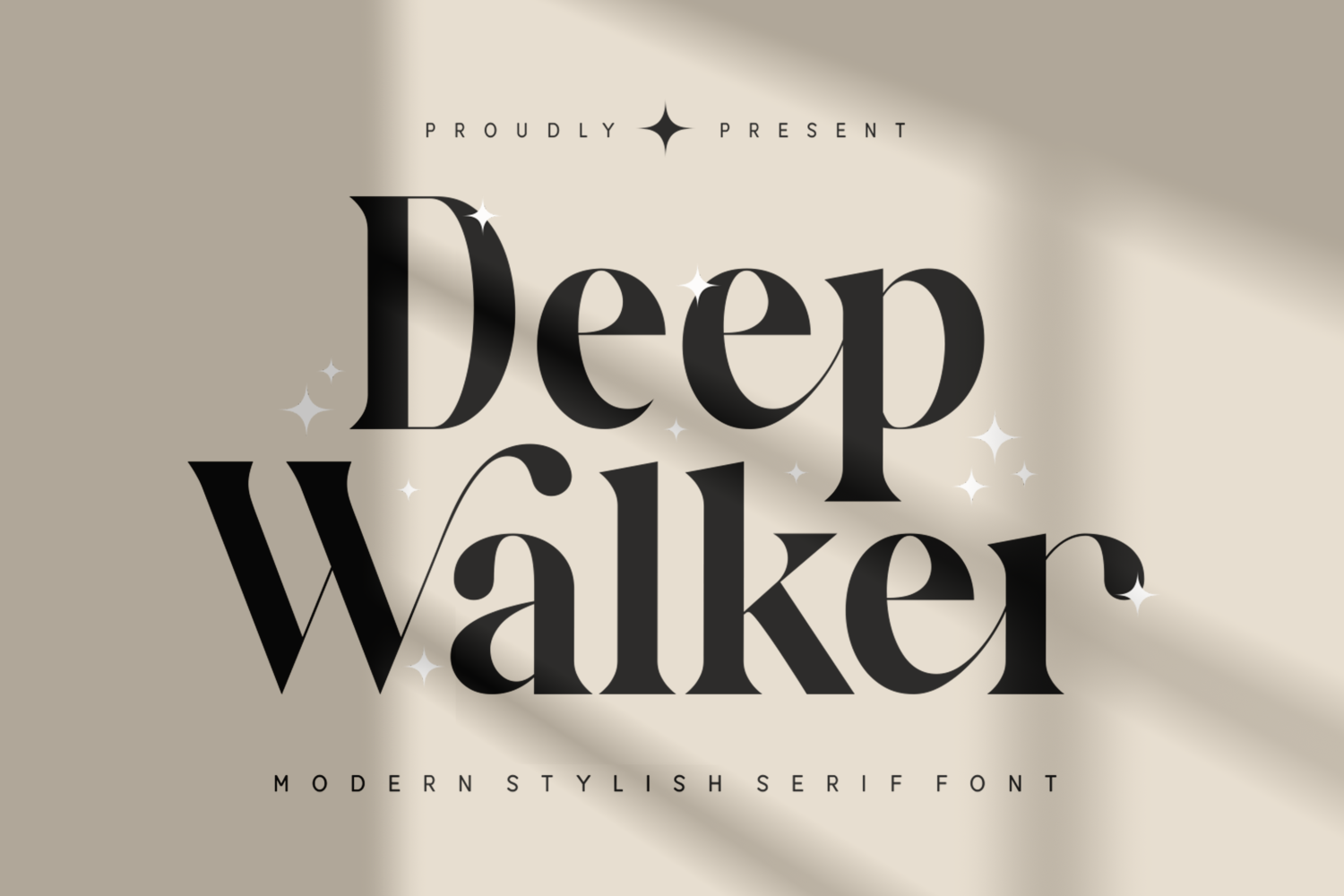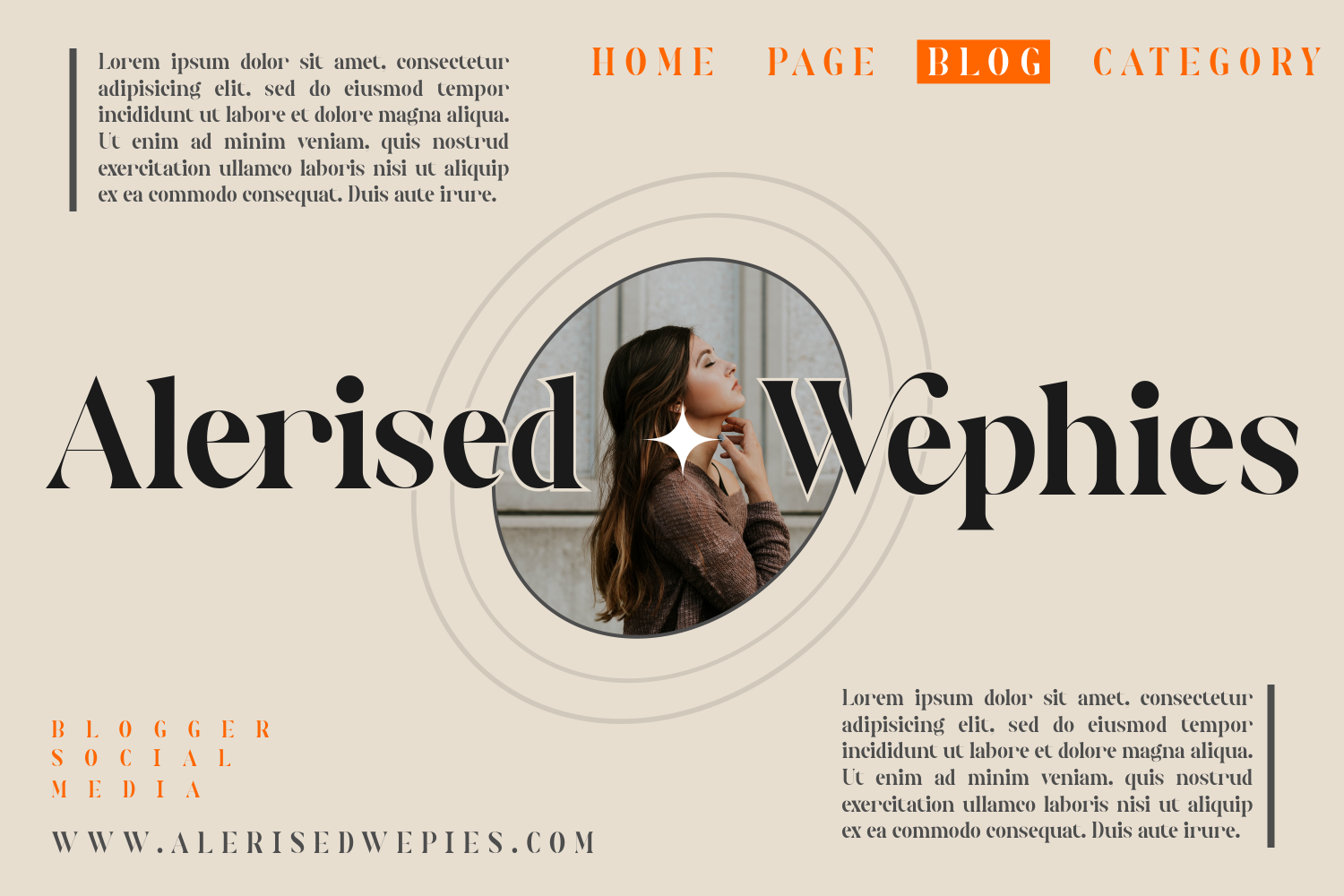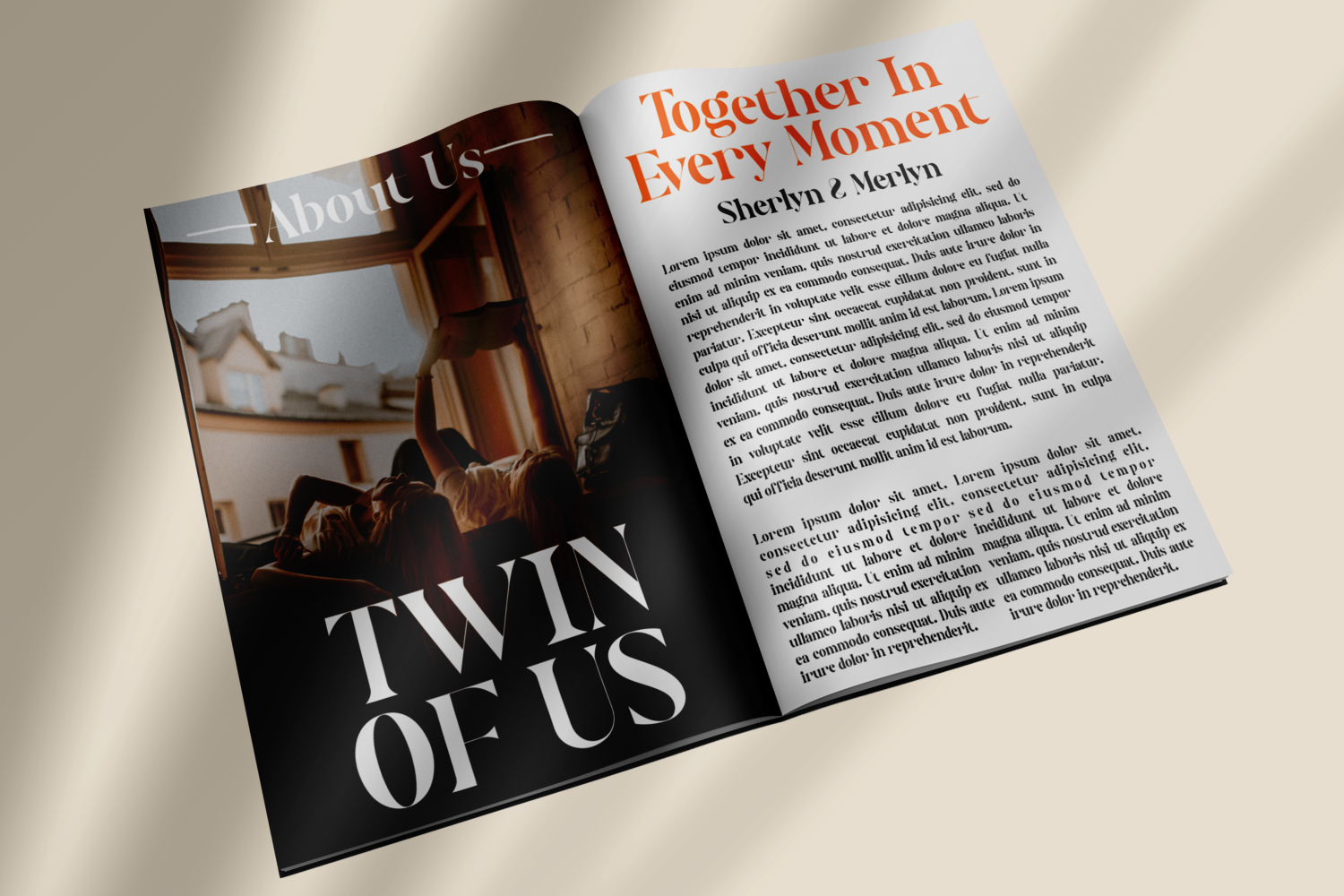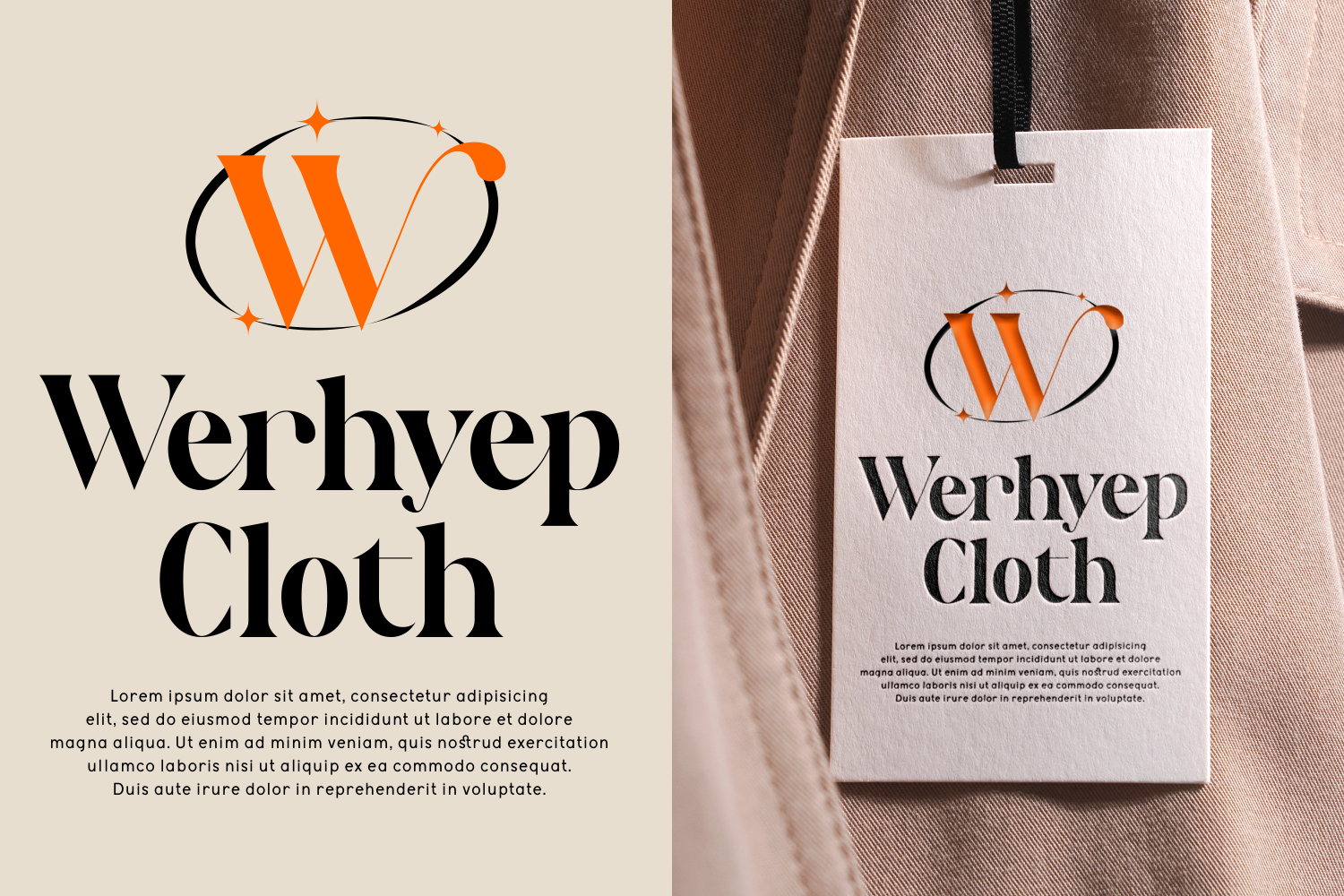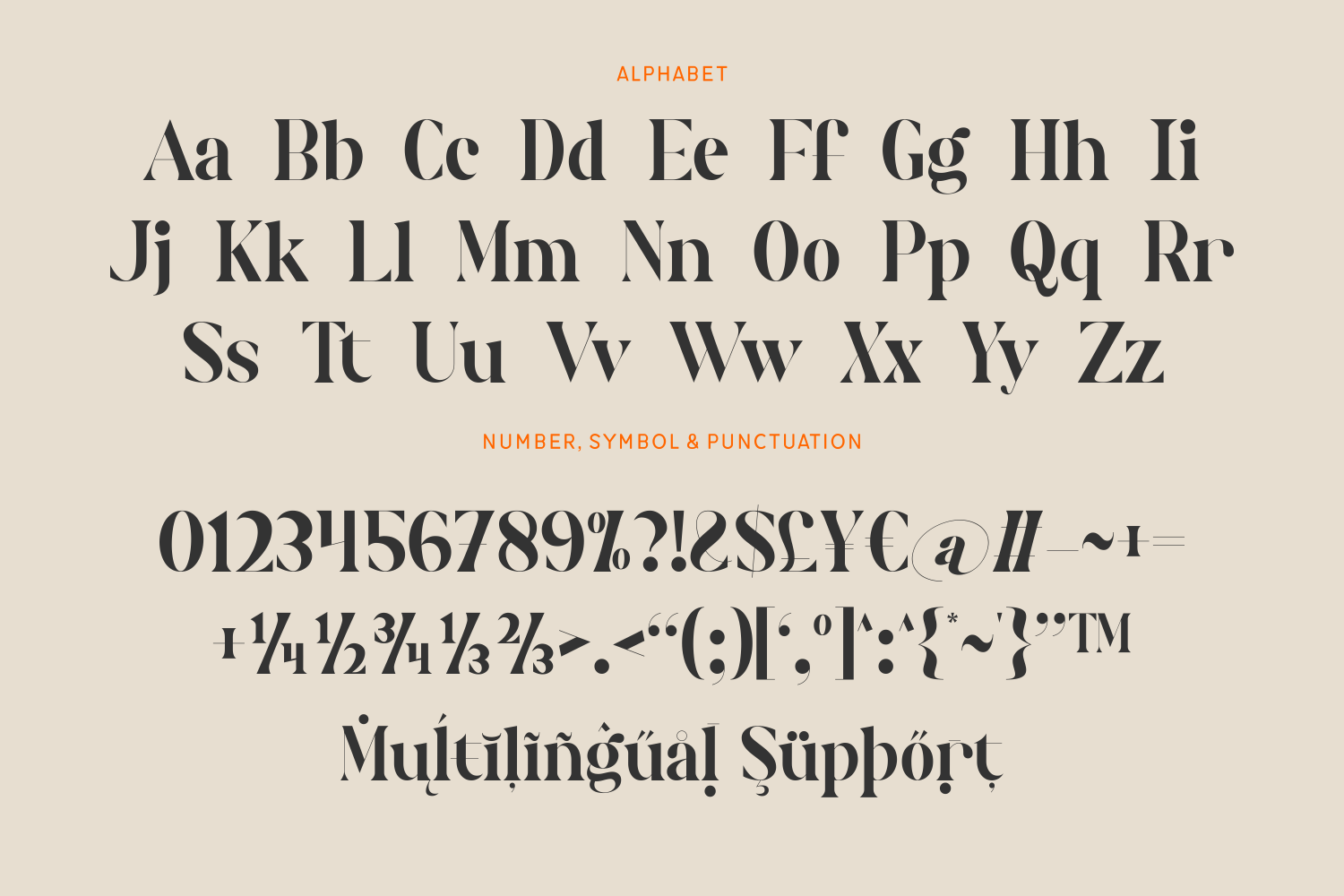
Deep Walker is a bold and stylish modern serif font with a high-contrast design and artistic flair. Featuring sharp serifs, dramatic curves, and distinctive swashes, it strikes a perfect balance between elegance and edginess. Complete with multilingual support and sleek punctuation, this typeface brings sophistication and a touch of drama to any visual project.